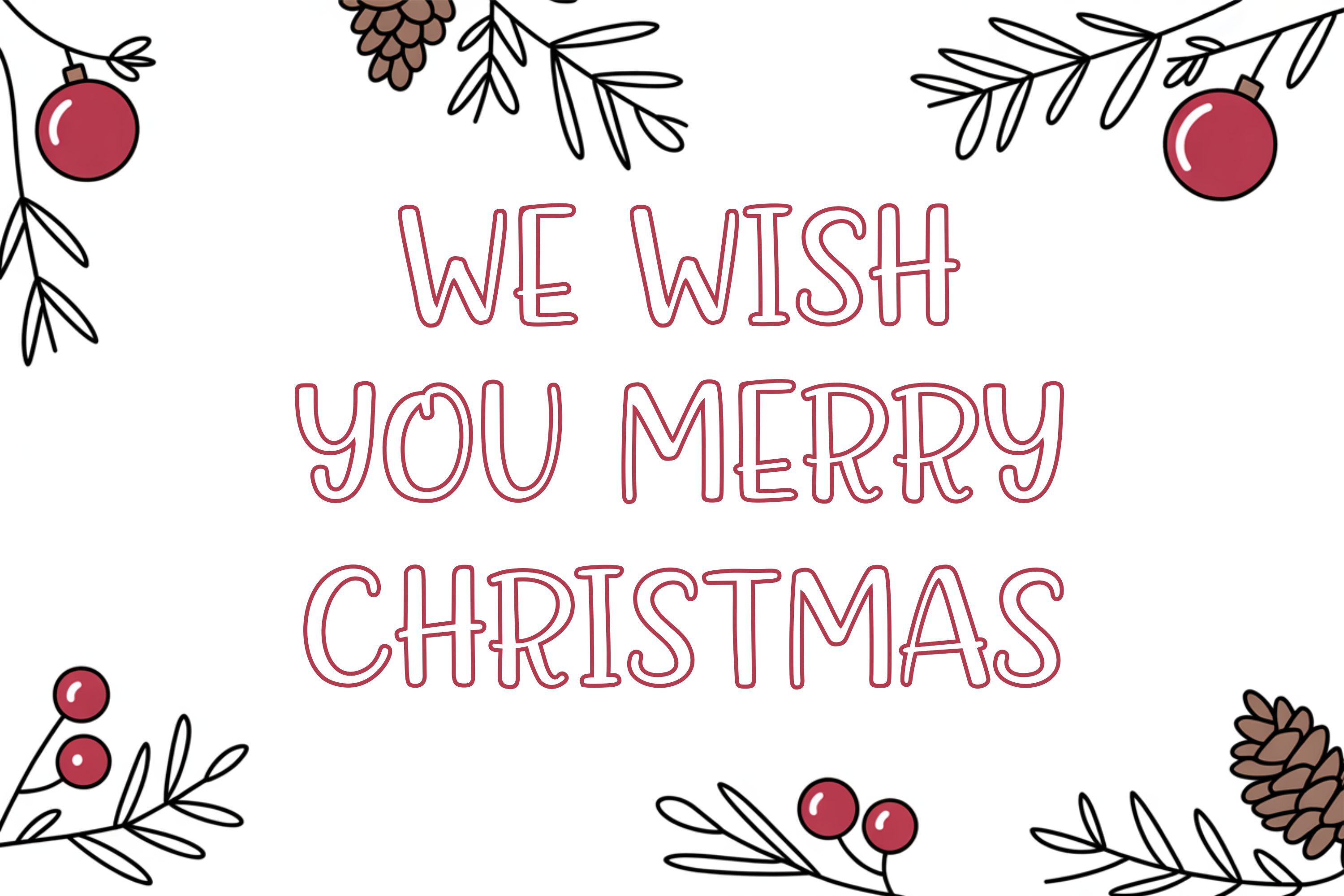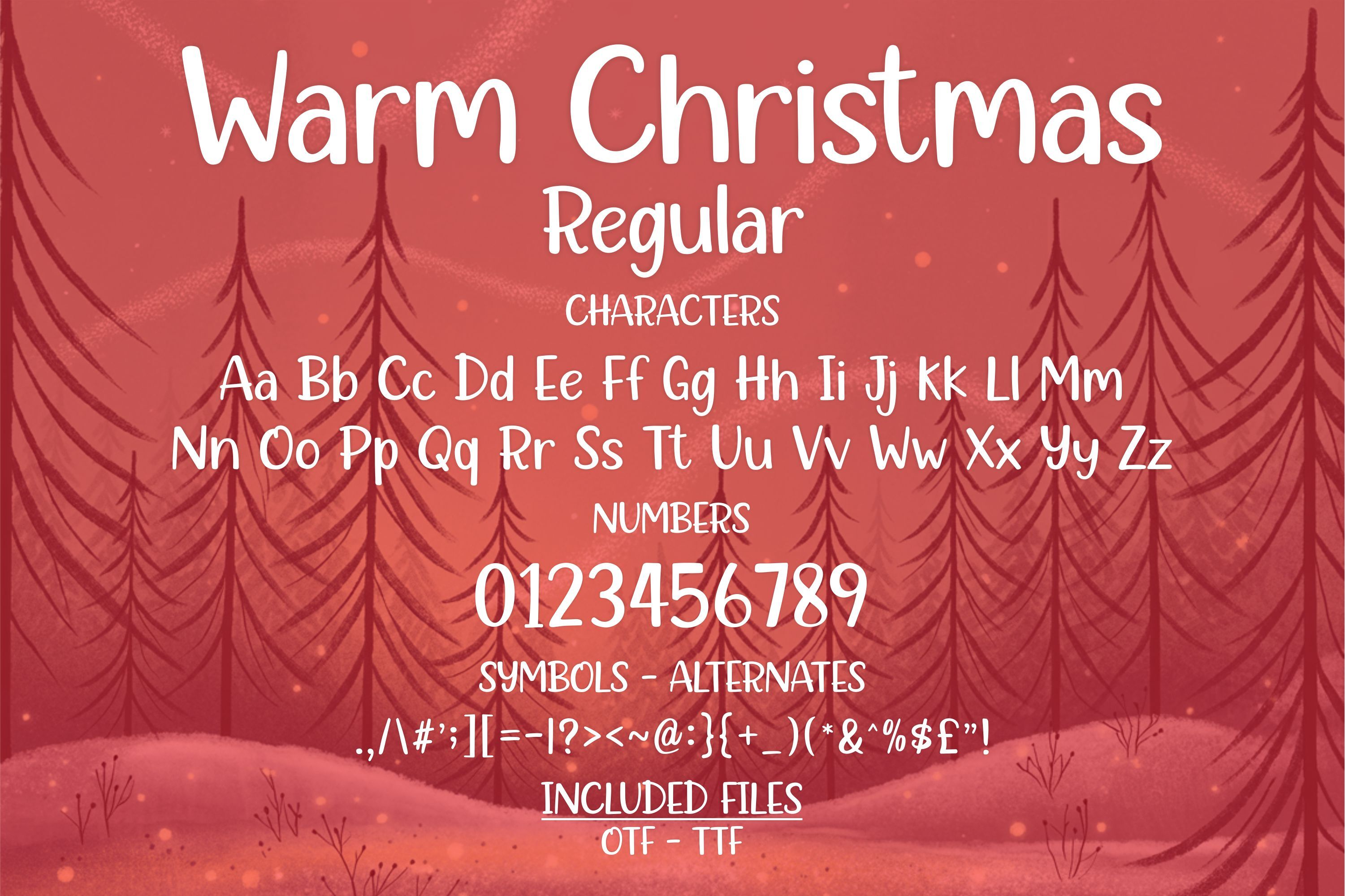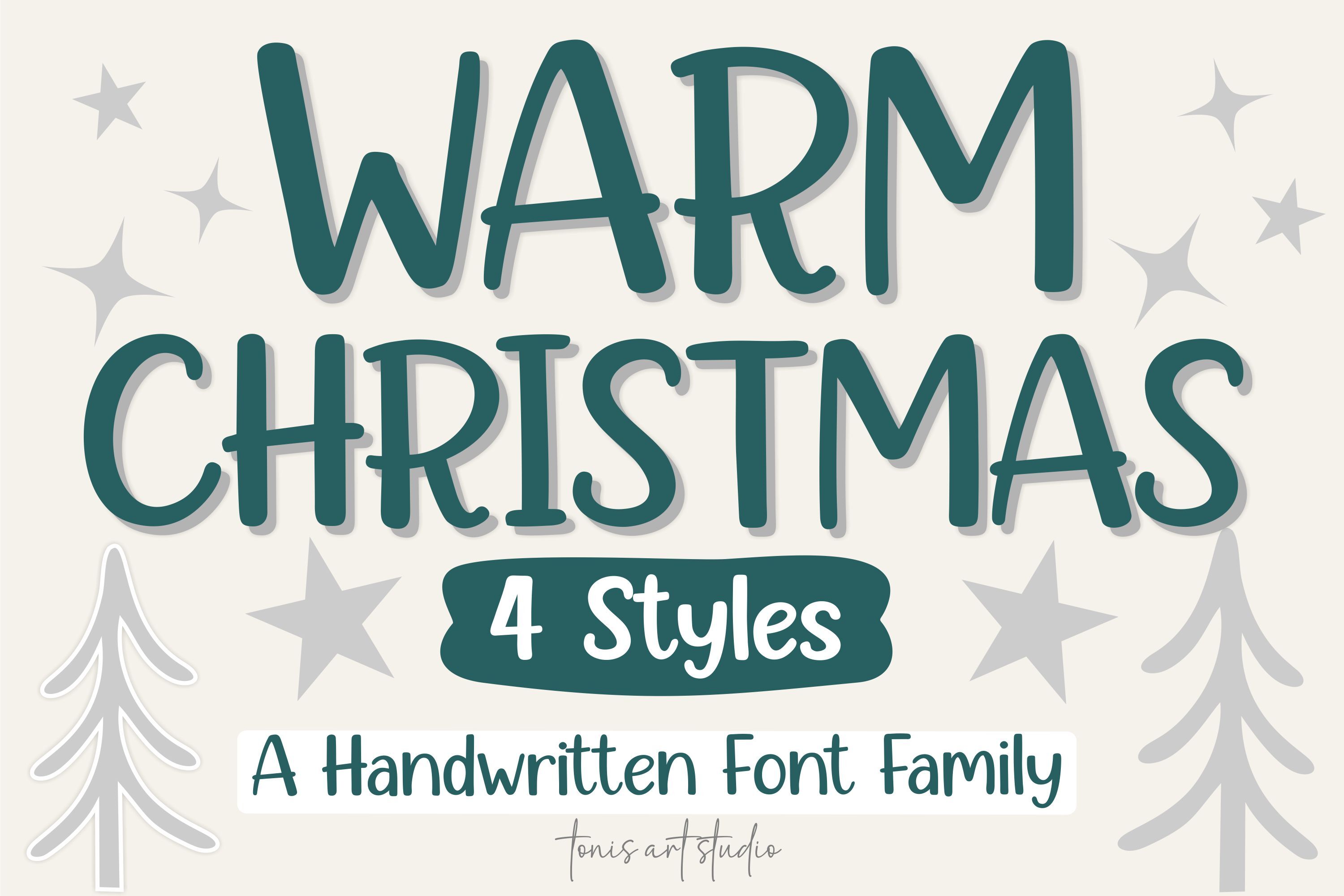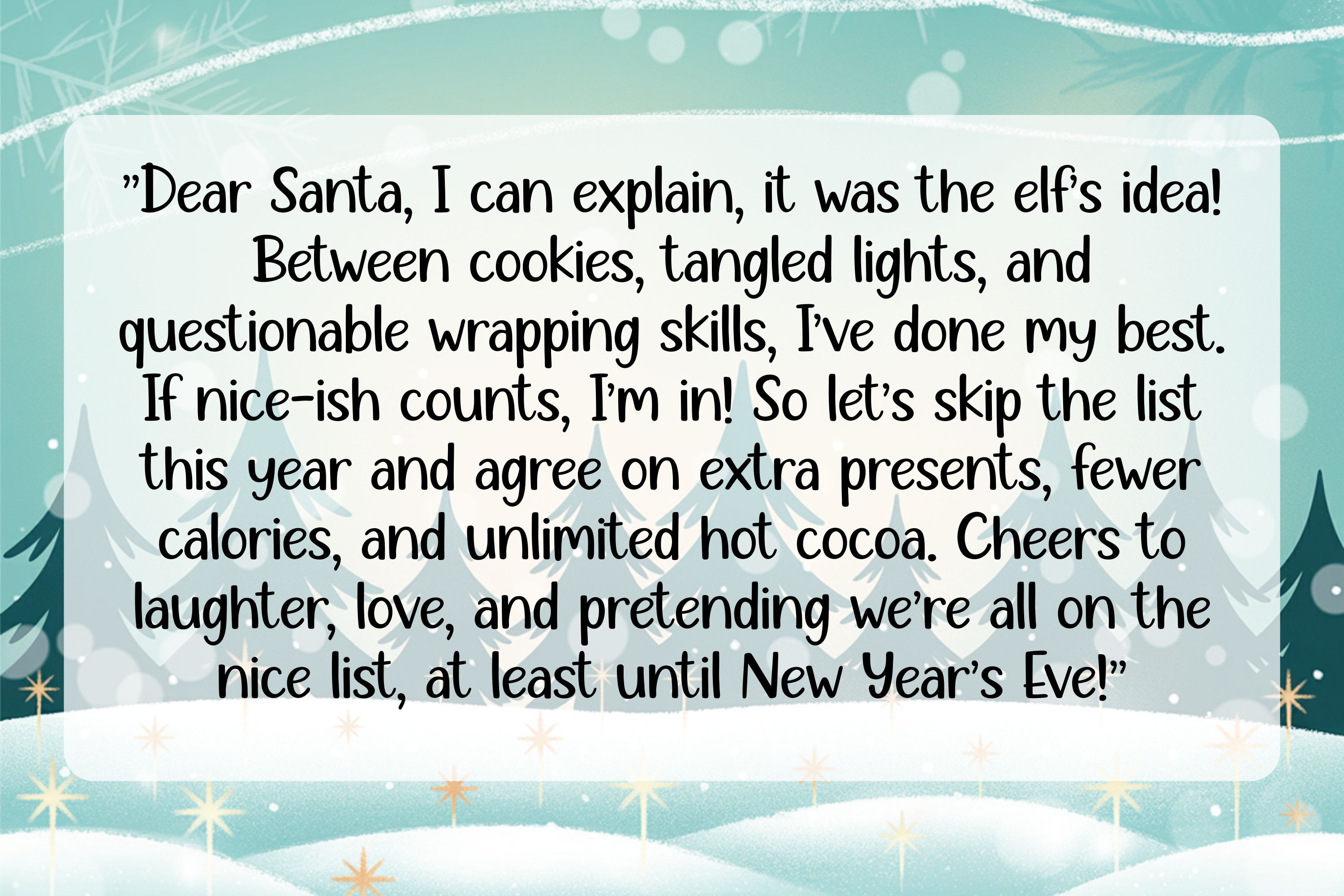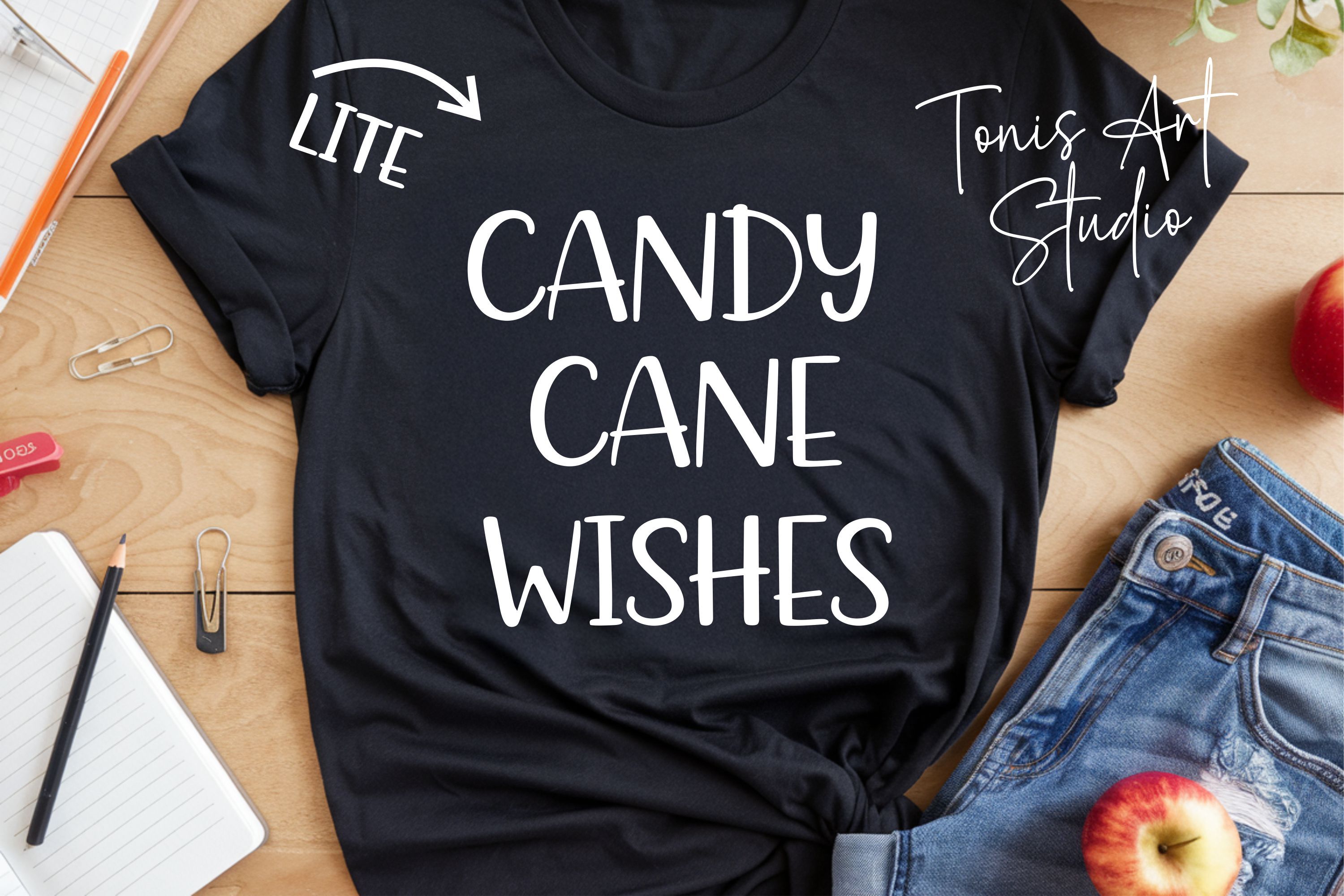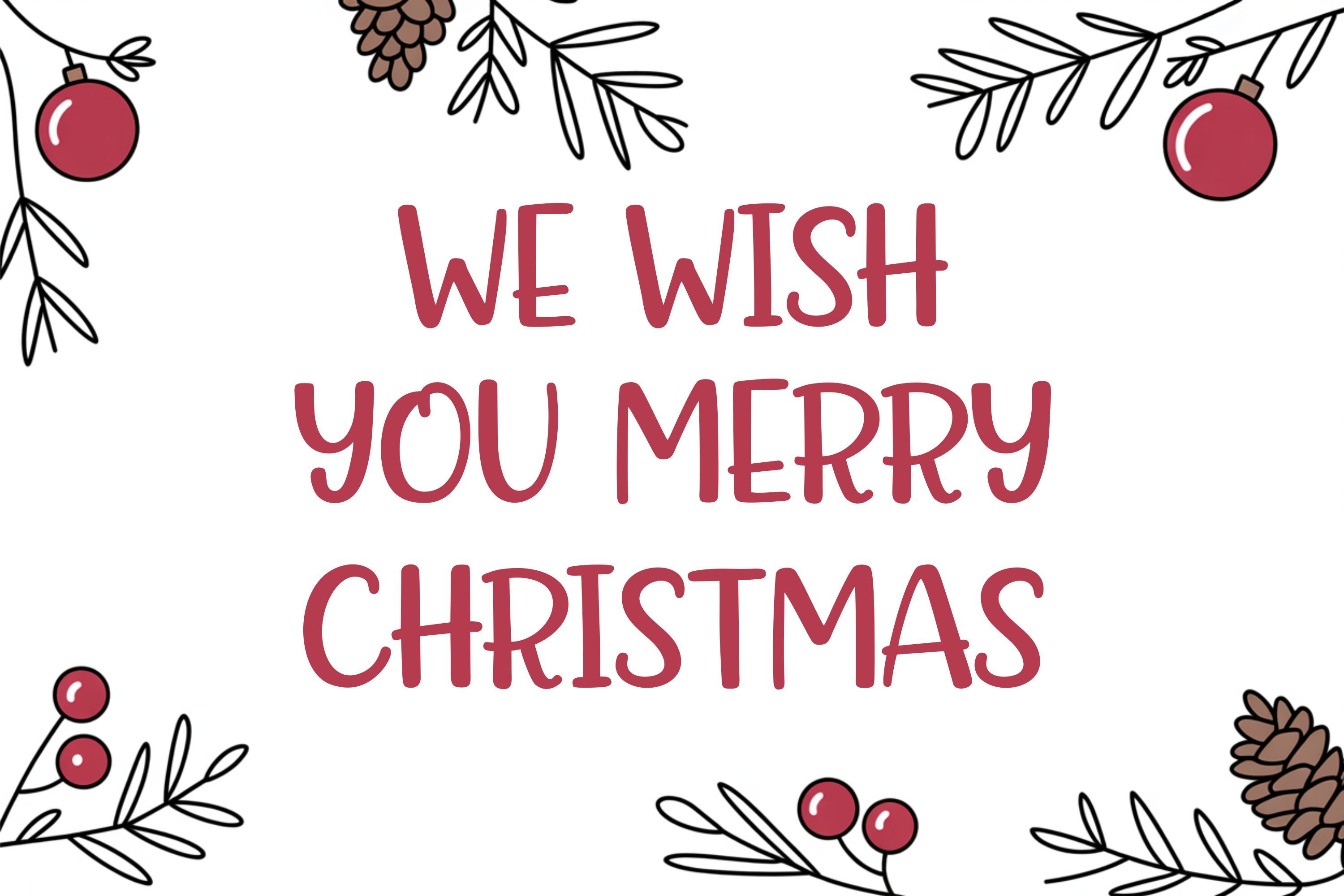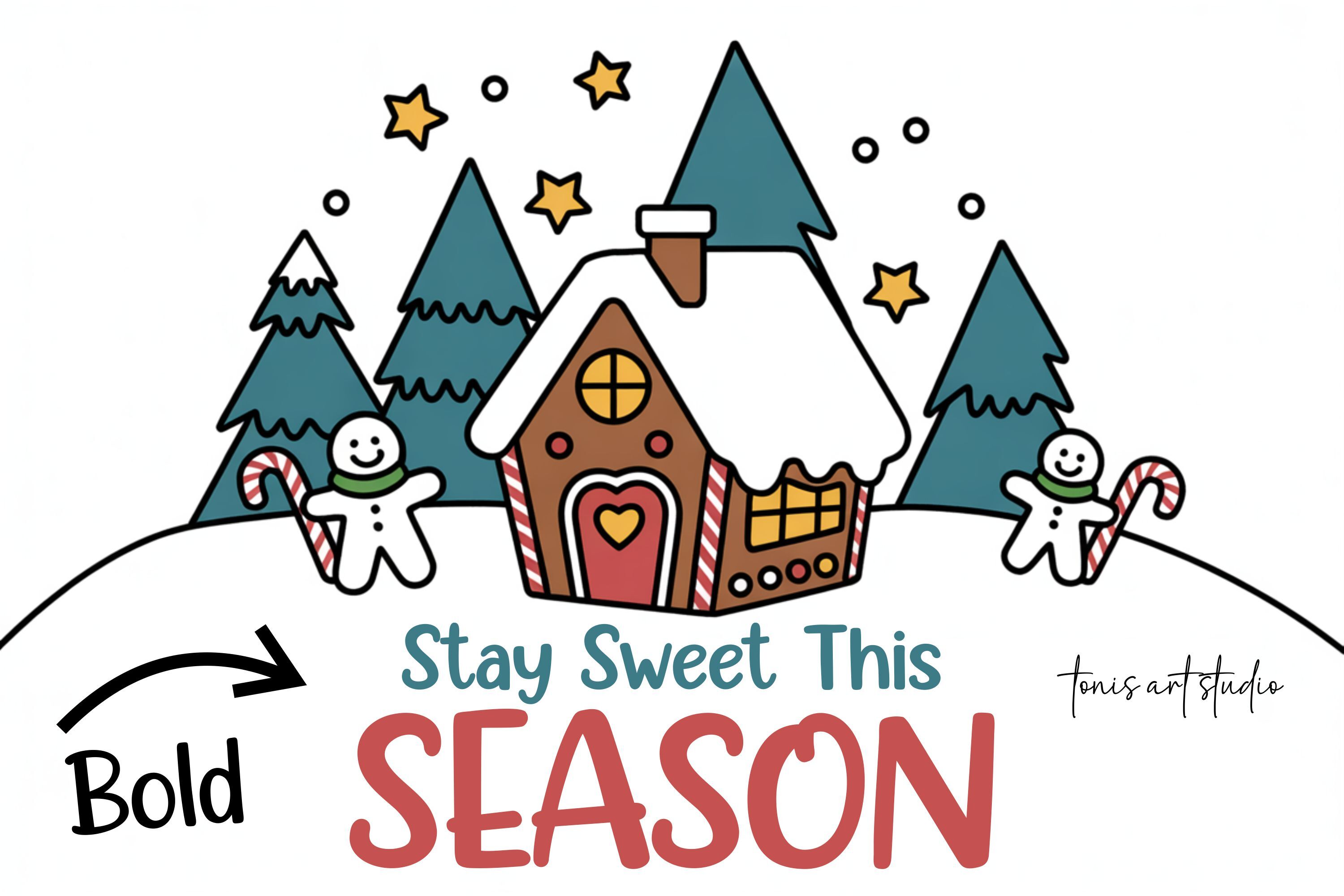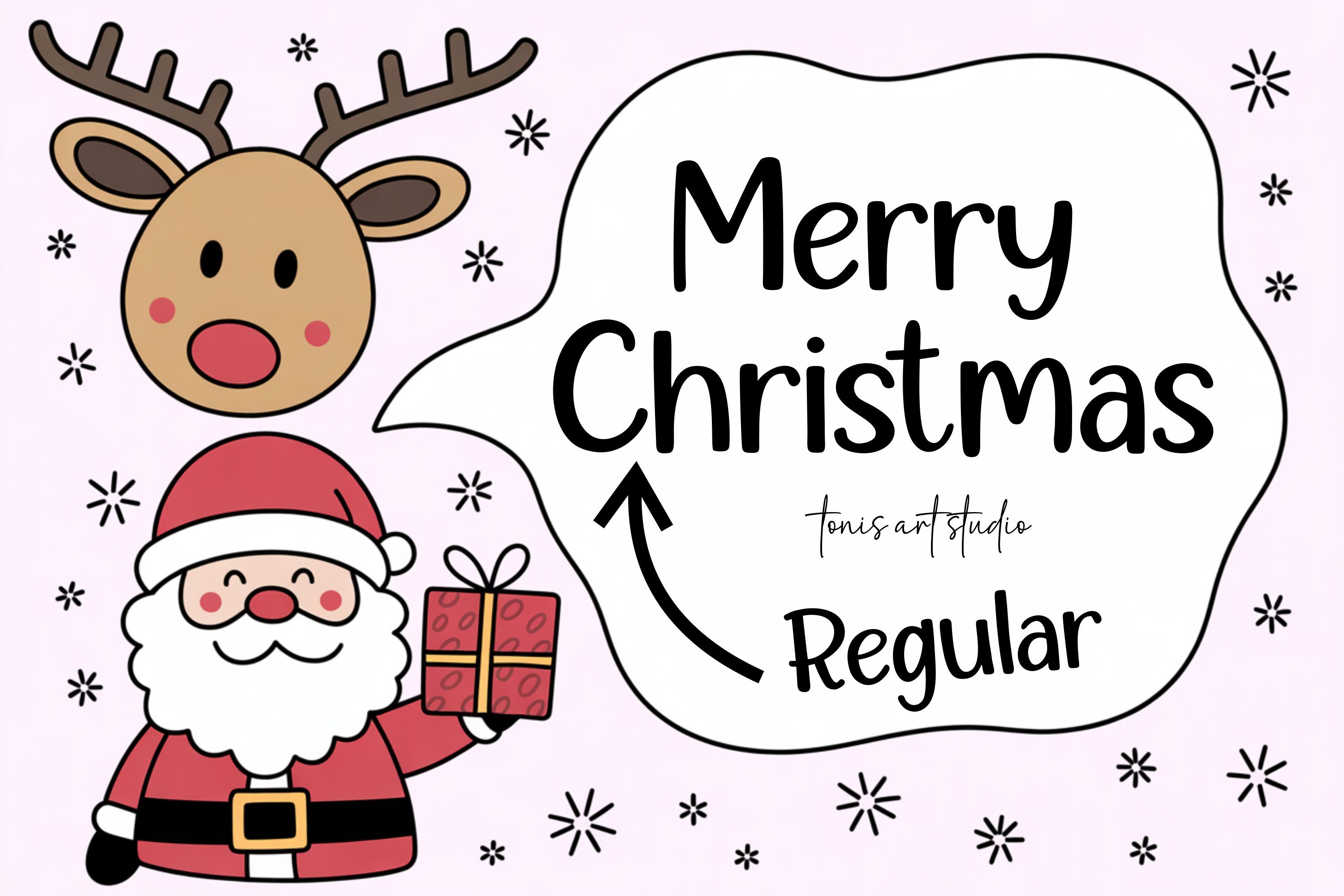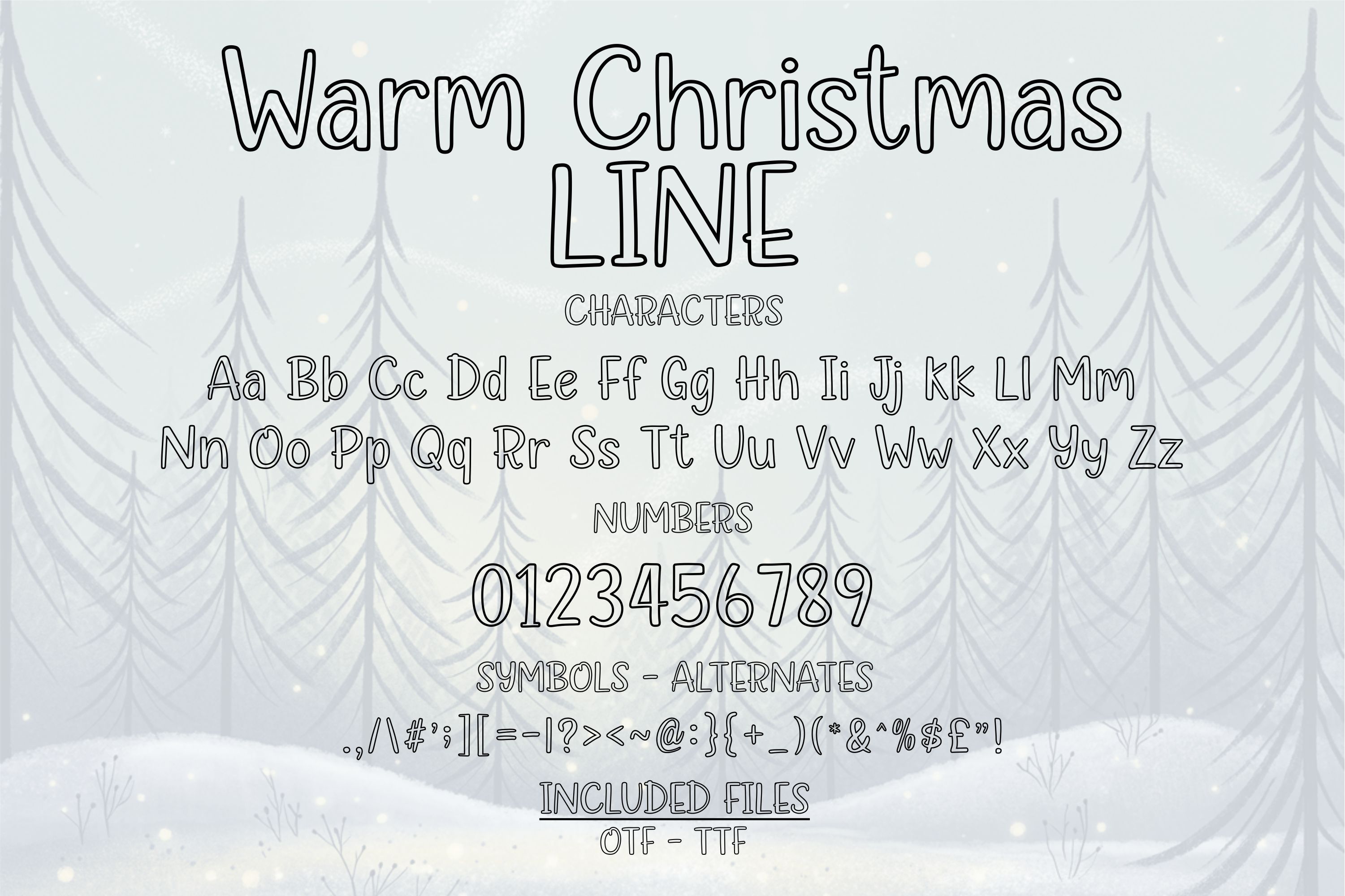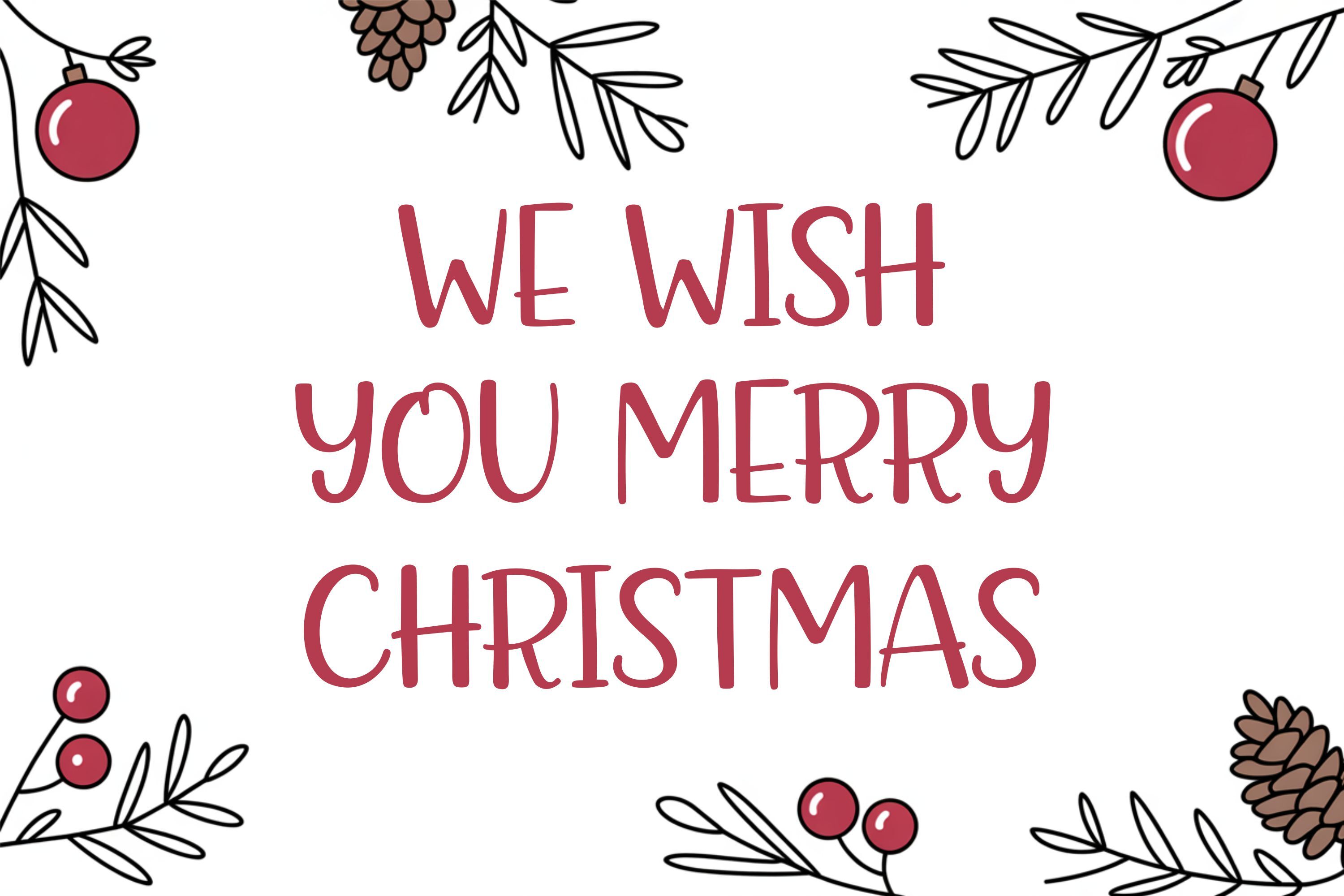
Warm Christmas Fonts, Cozy Handwritten Font Family, Cute Holiday Font
The Warm Christmas Font Family includes Warm Christmas Regular, Bold, Lite, and Line — a cozy handwritten typeface designed to bring the festive spirit into your creative projects. With smooth lines, rounded edges, and a cheerful personality, this family of fonts captures the warmth and joy of the holiday season. Perfect for Christmas cards, festive crafts, winter apparel, and joyful Cricut or Silhouette creations. A standout feature? Each style carries its own unique charm — from the soft and minimal Lite to the playful Bold version that’s perfect for standout Christmas quotes. Whether you’re designing “Merry Christmas” t-shirts, Santa gift tags, greeting cards, or digital stickers, Warm Christmas gives you four delightful styles to mix, match, and layer for maximum creative versatility. With its joyful handwritten aesthetic, this font family is ideal for designers, crafters, and makers who want to spread cozy holiday vibes through their work.